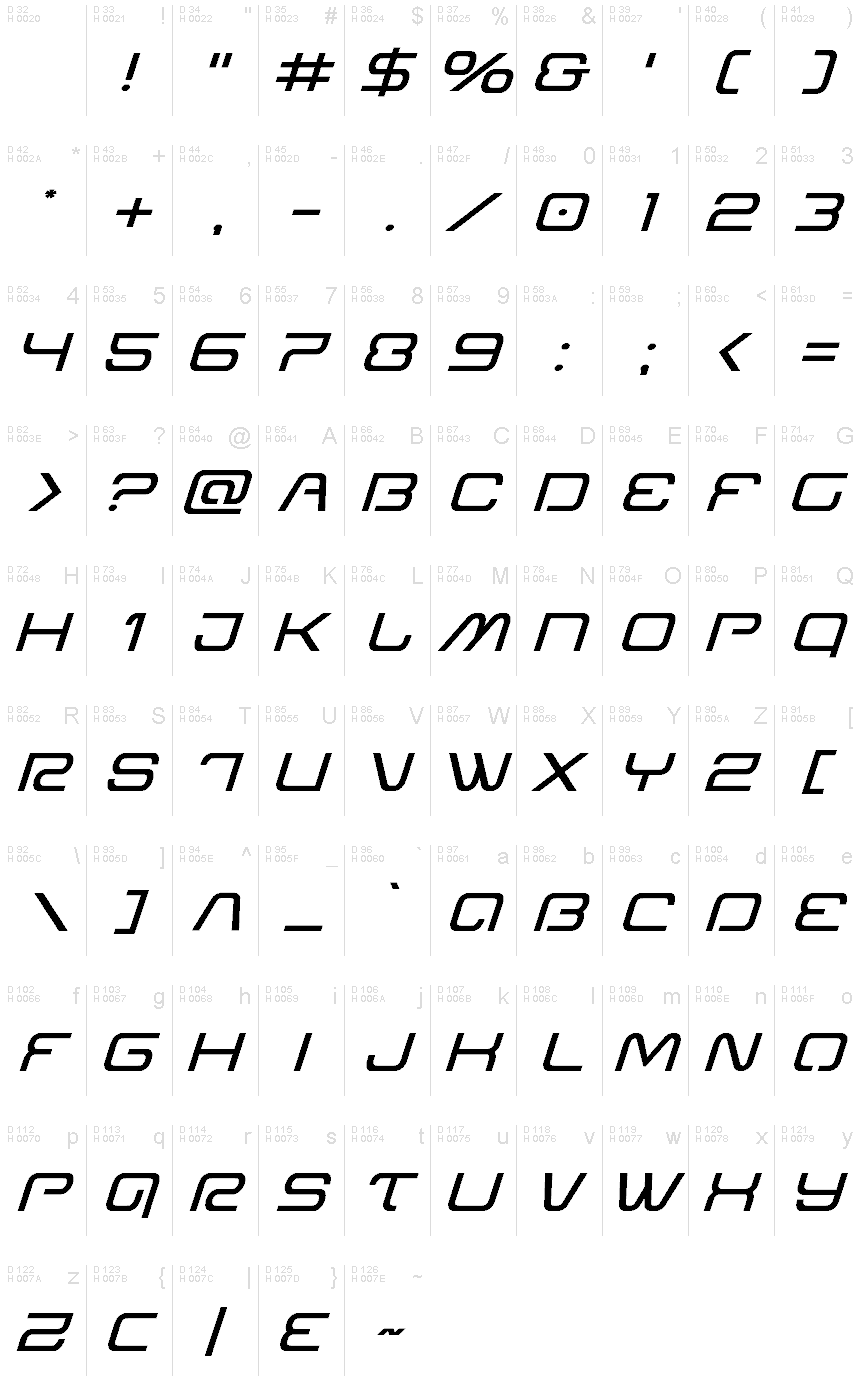
Miracle Mercury Expanded Itali
Miracle Mercury Expanded Italic font by Iconian Fonts is a futuristic display typeface with expanded width and italic style. Its letters are sleek, smooth, and streamlined which makes the whole typeface modern and beautiful. You will also notice that each character has random geometric elements in them which adds to the uniqueness of this resource that’s made even better with 20 different styles.
You can utilize Miracle Mercury for editorial header designs of newspapers or magazines, in advertising posters, typography artwork, book covers, video games & video trailers. Furthermore, galactic-themed branding projects and product packaging ideas are also ideal uses.